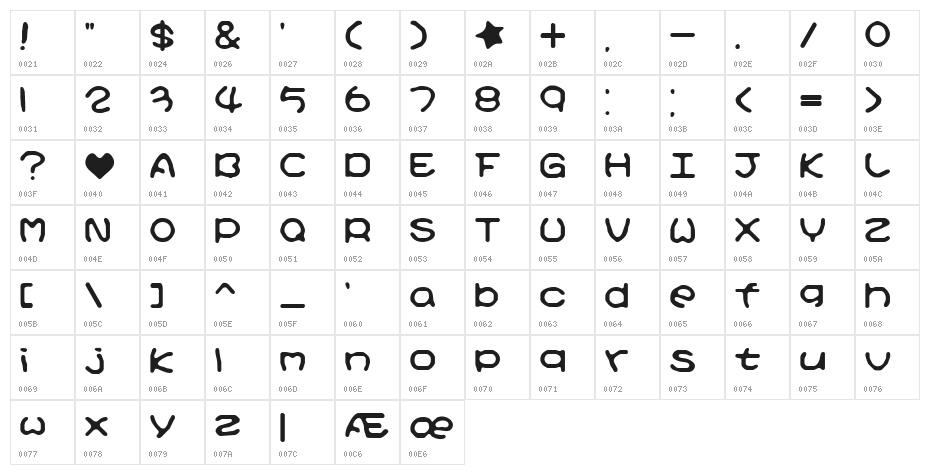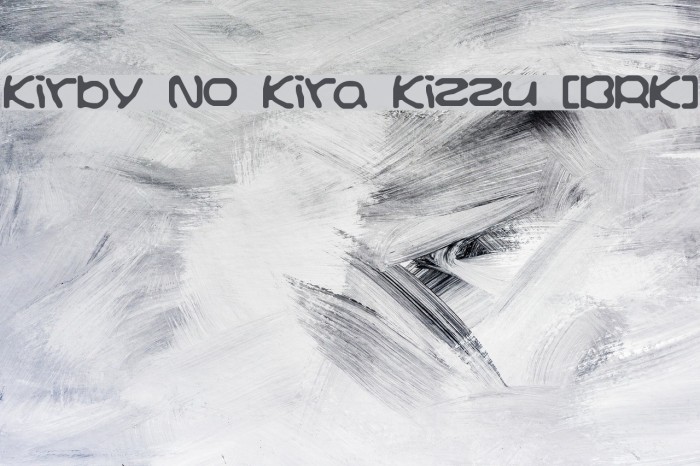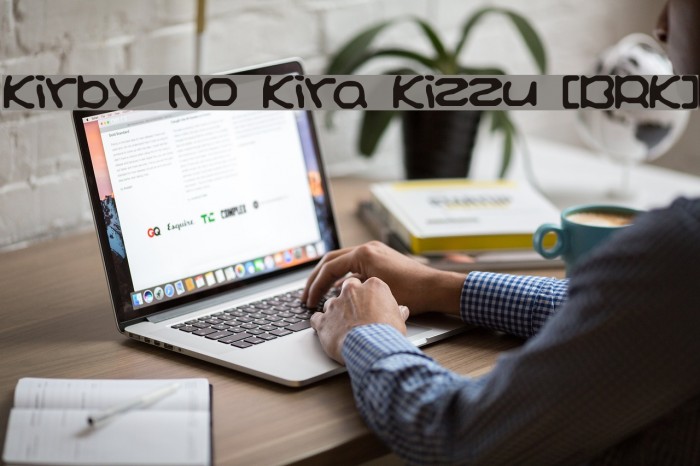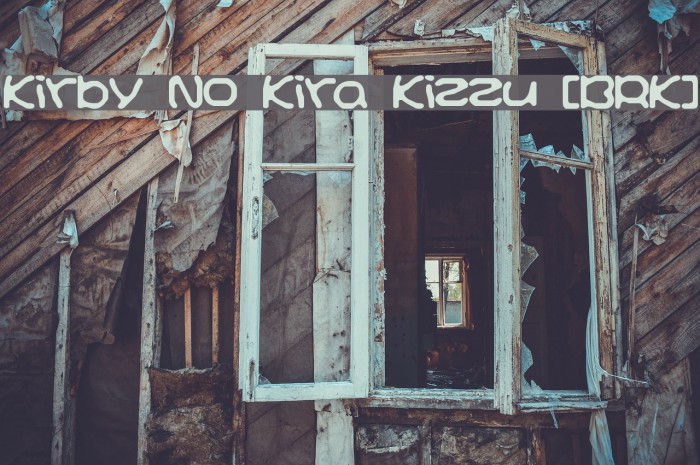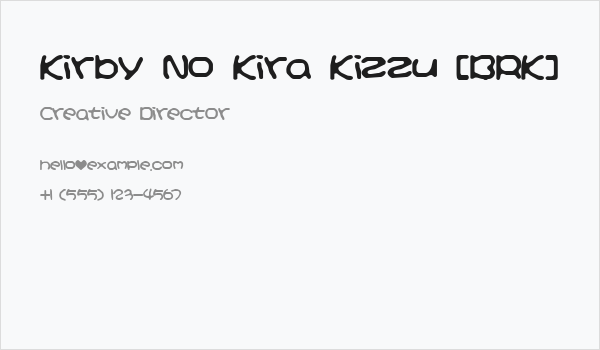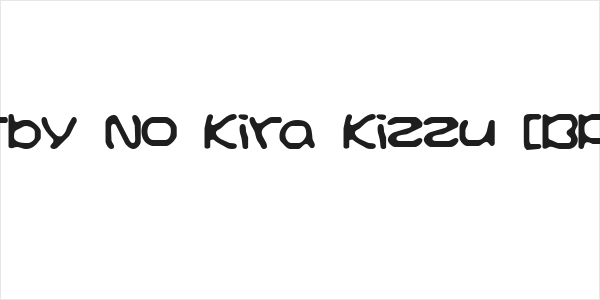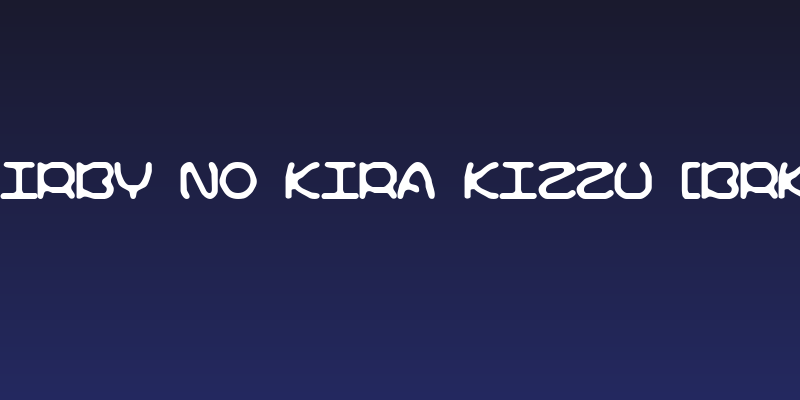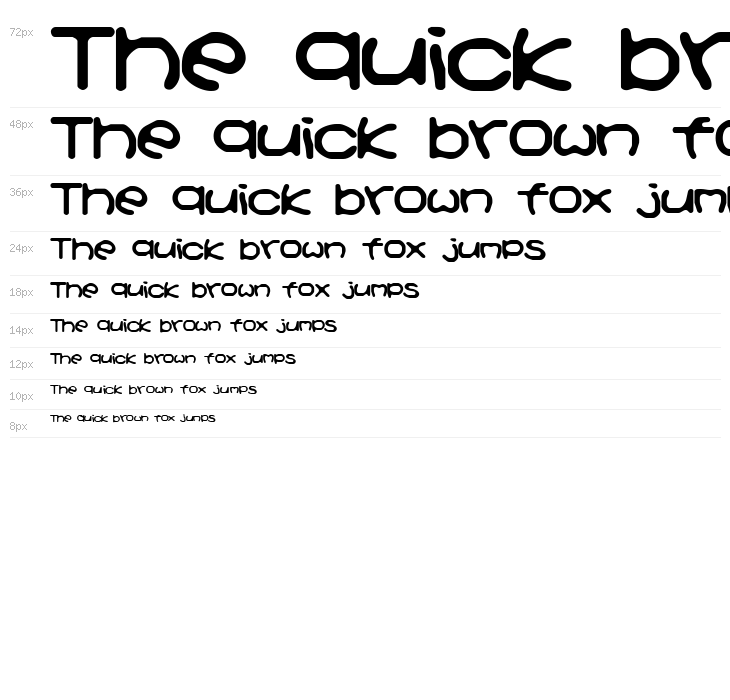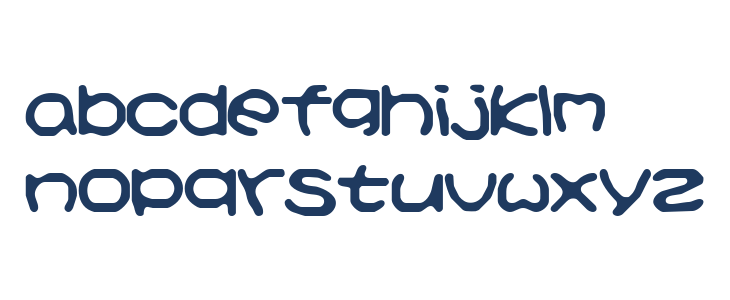
Kirby No Kira Kizzu [BRK] Font
Kirby No Kira Kizzu [BRK] Description
This playful and whimsical font features rounded, bubbly characters with a hand-drawn aesthetic. The letters are bold and have a unique, almost cartoon-like appearance, making them stand out with their thick strokes and smooth curves. The font maintains a consistent weight throughout, giving it a cohesive look. The characters are slightly irregular, adding to the charm and informal style. The numbers and special characters follow the same design principles, ensuring uniformity across all glyphs. This font is ideal for projects that require a fun and engaging visual style.
| Overall Style | Whimsical, Playful |
| Proposed Projects | Ideal for children's books, playful branding, party invitations, and cartoon-themed designs. |